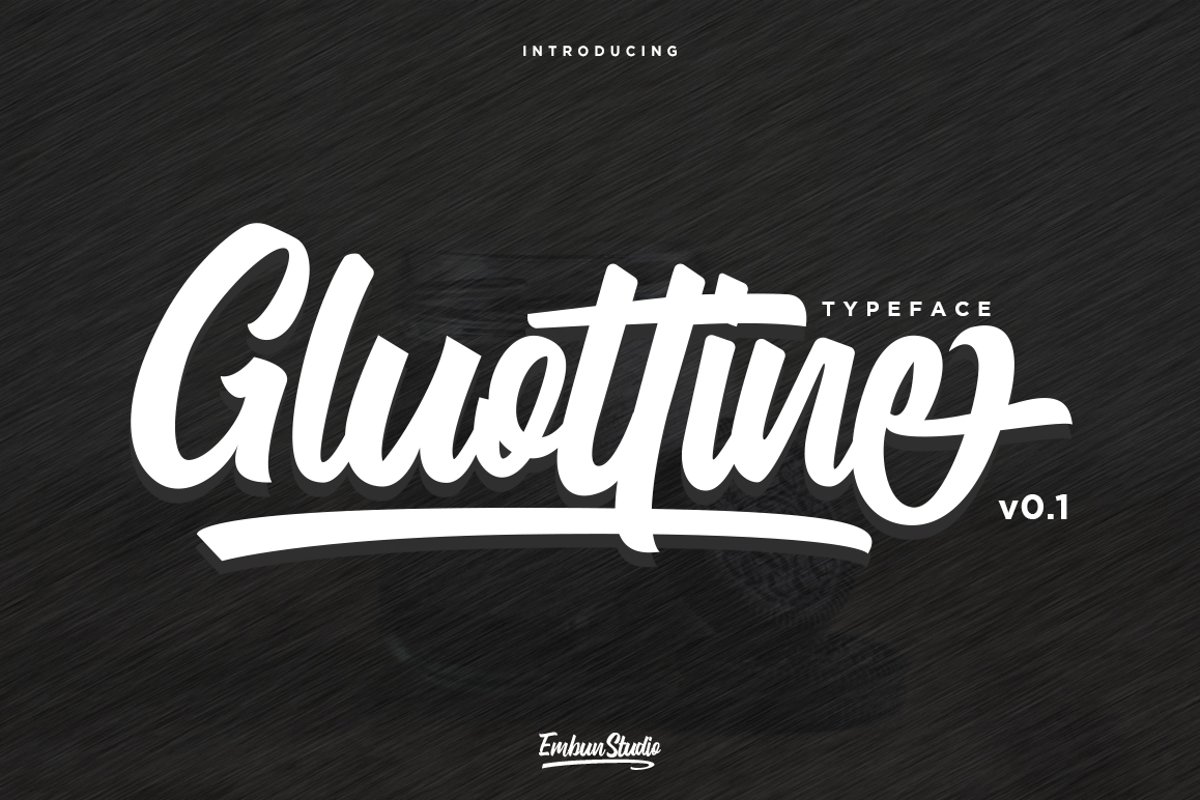
Gluottine Typeface
Gluottine
Gluottine v.01 is modern calligraphy with stylishtic alternate and lowercase alternate, suitable for your every project such as logo design, wedding invitation, poster, brochure, banner, packagin, t-shirt and many more.